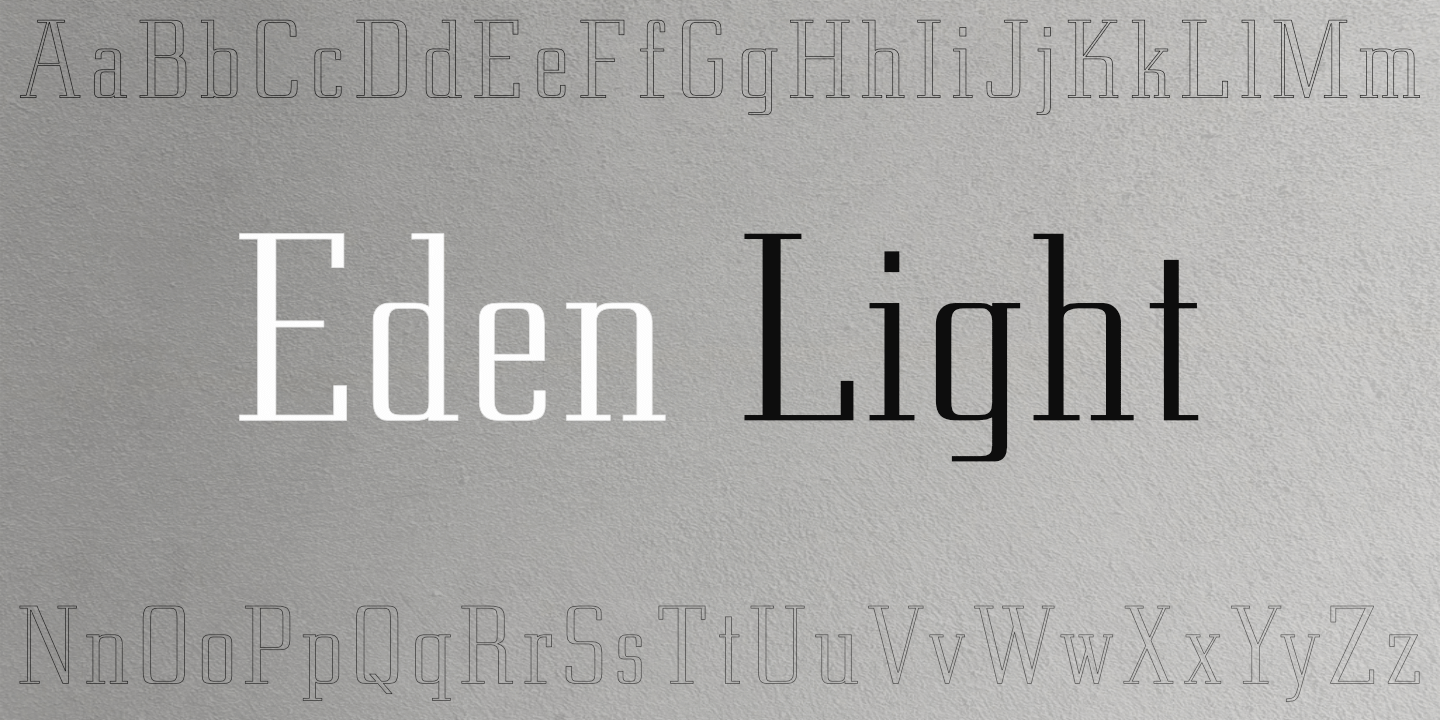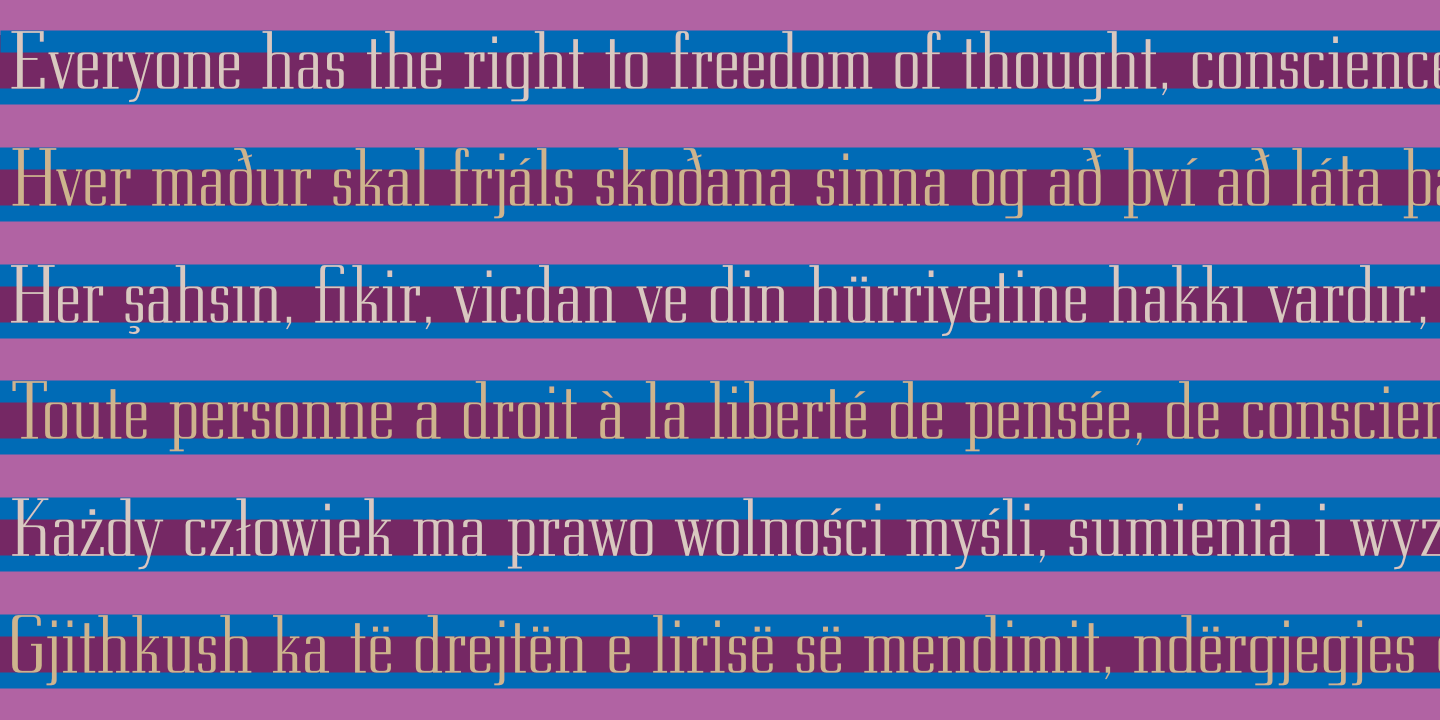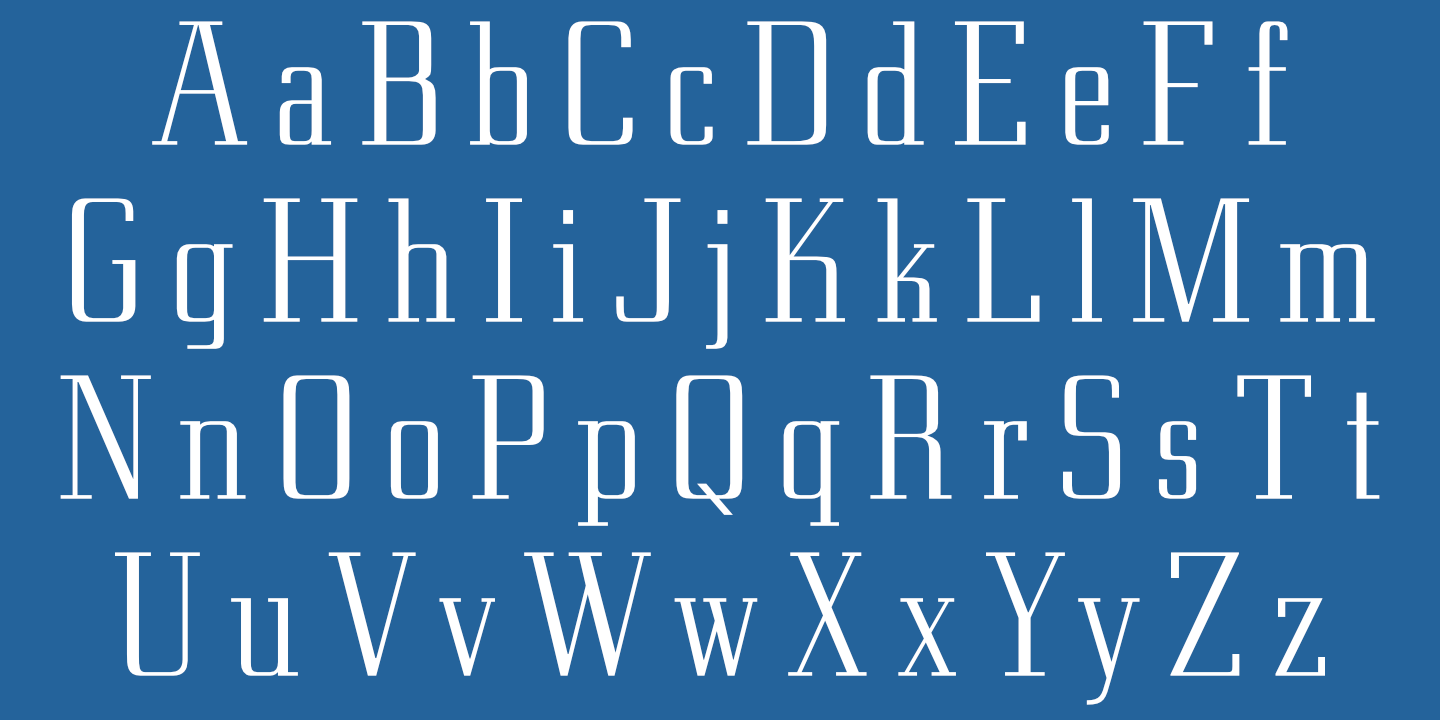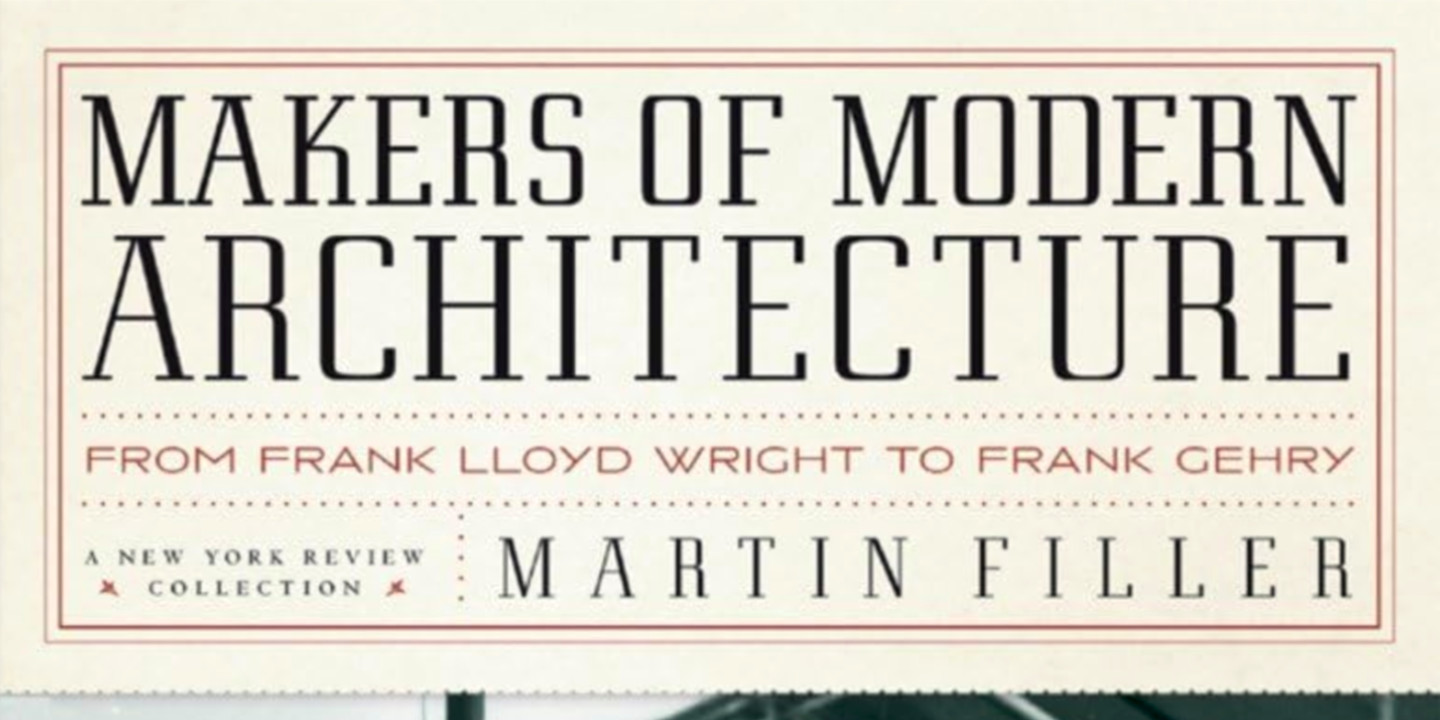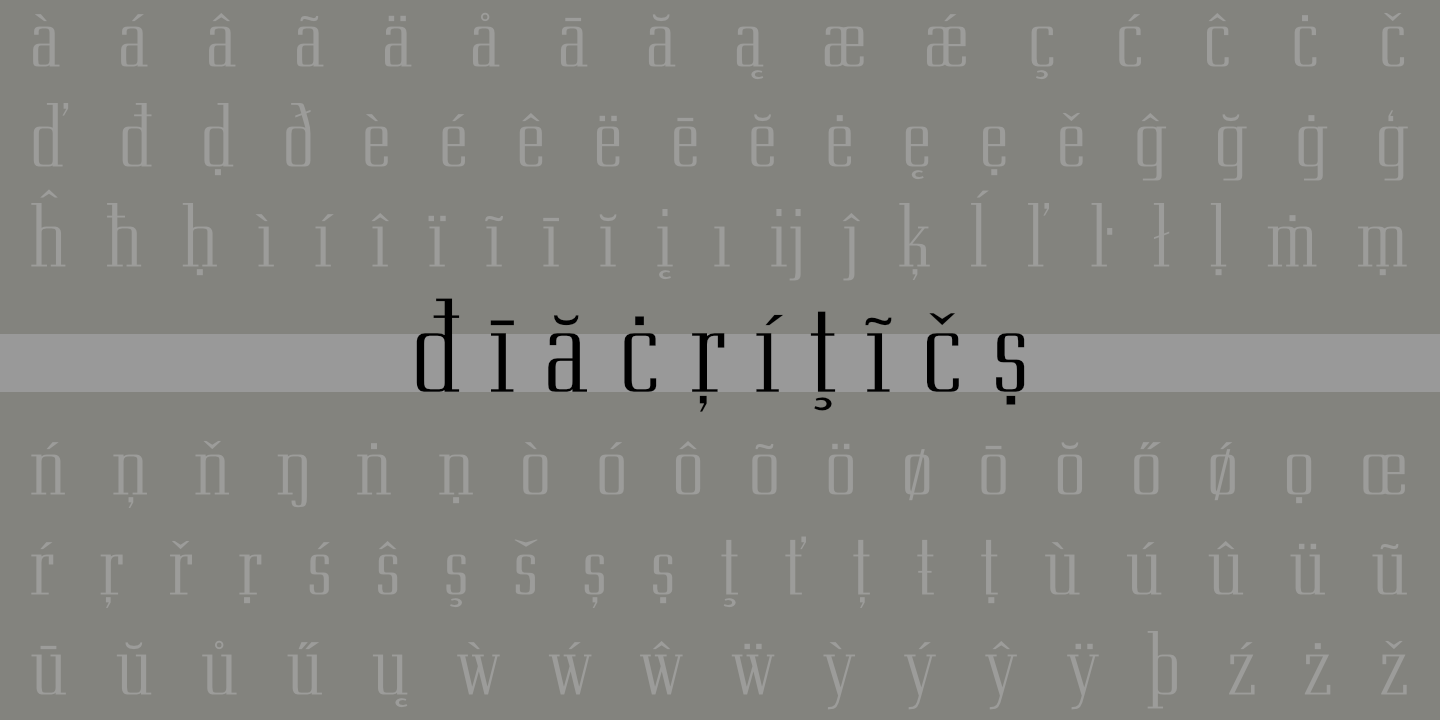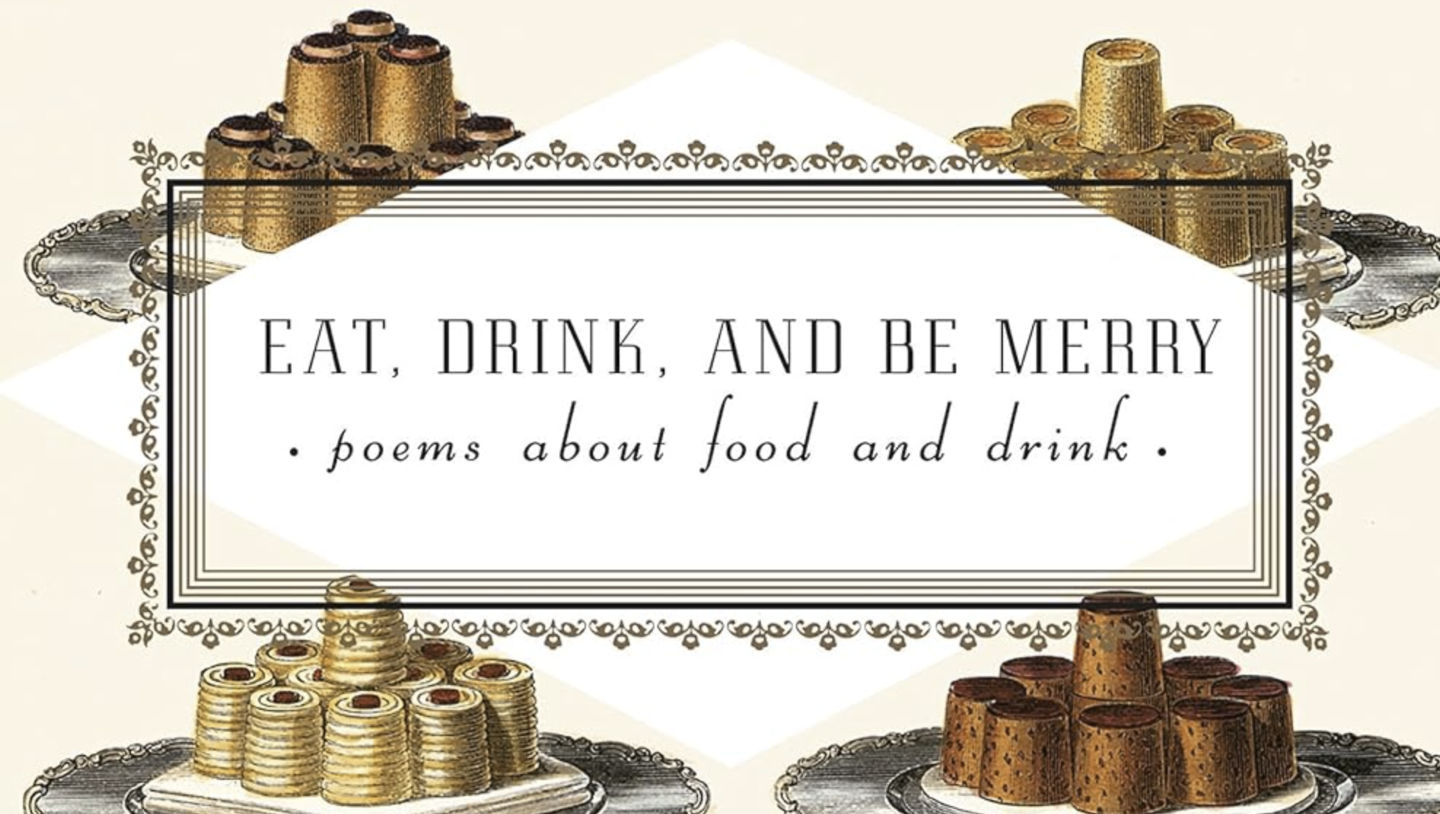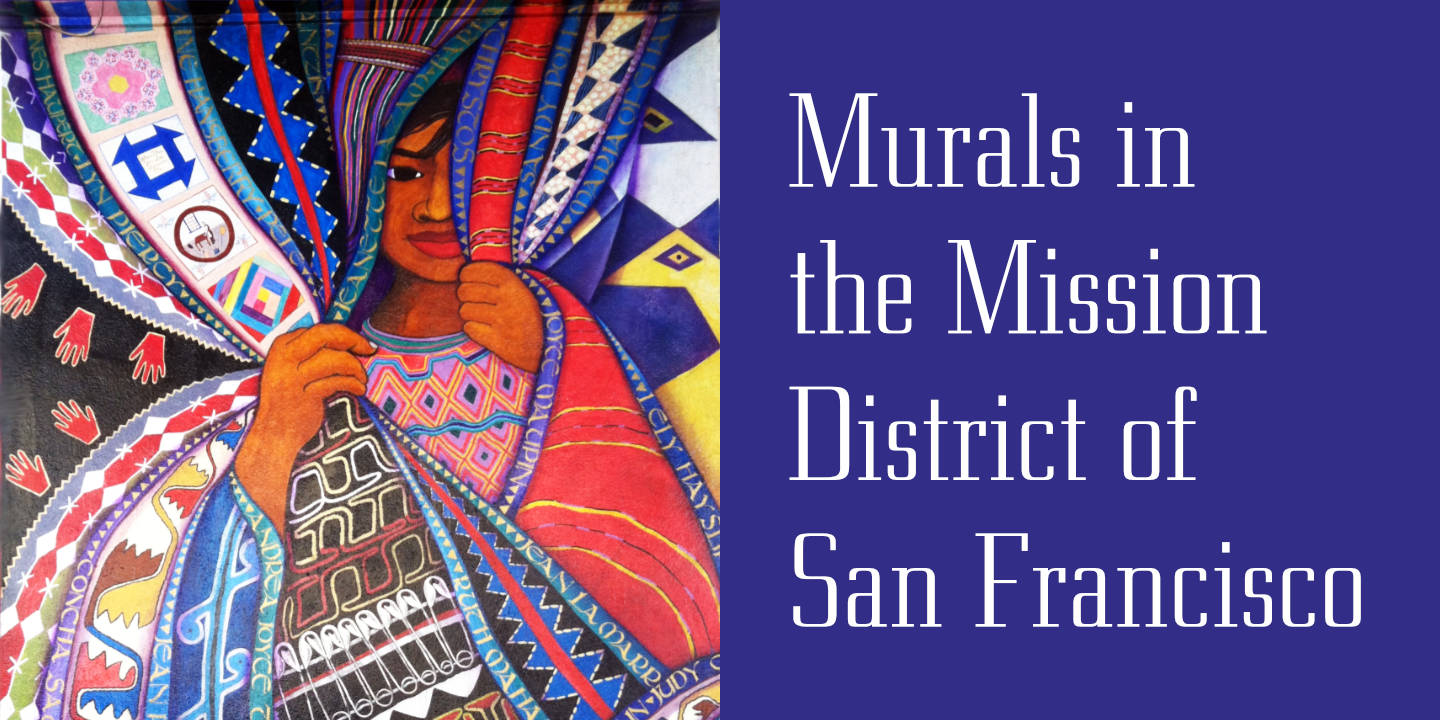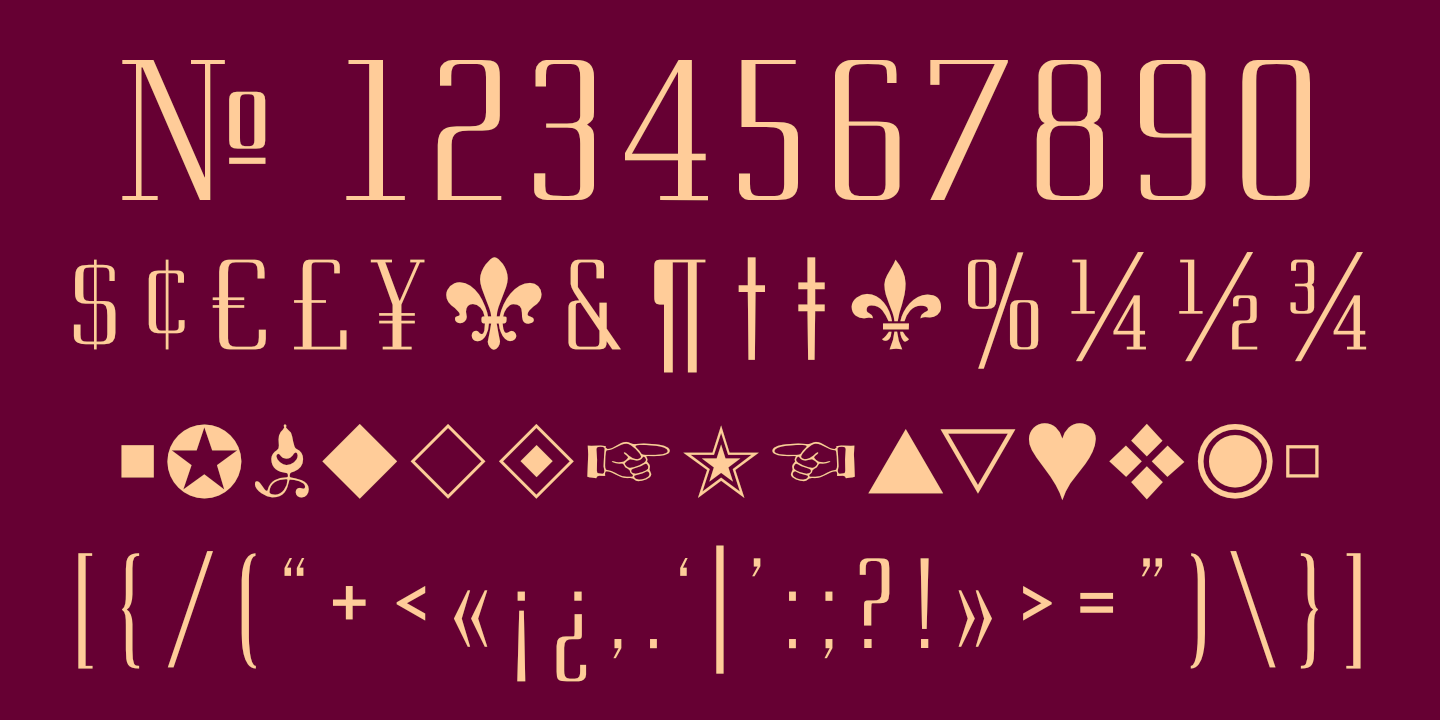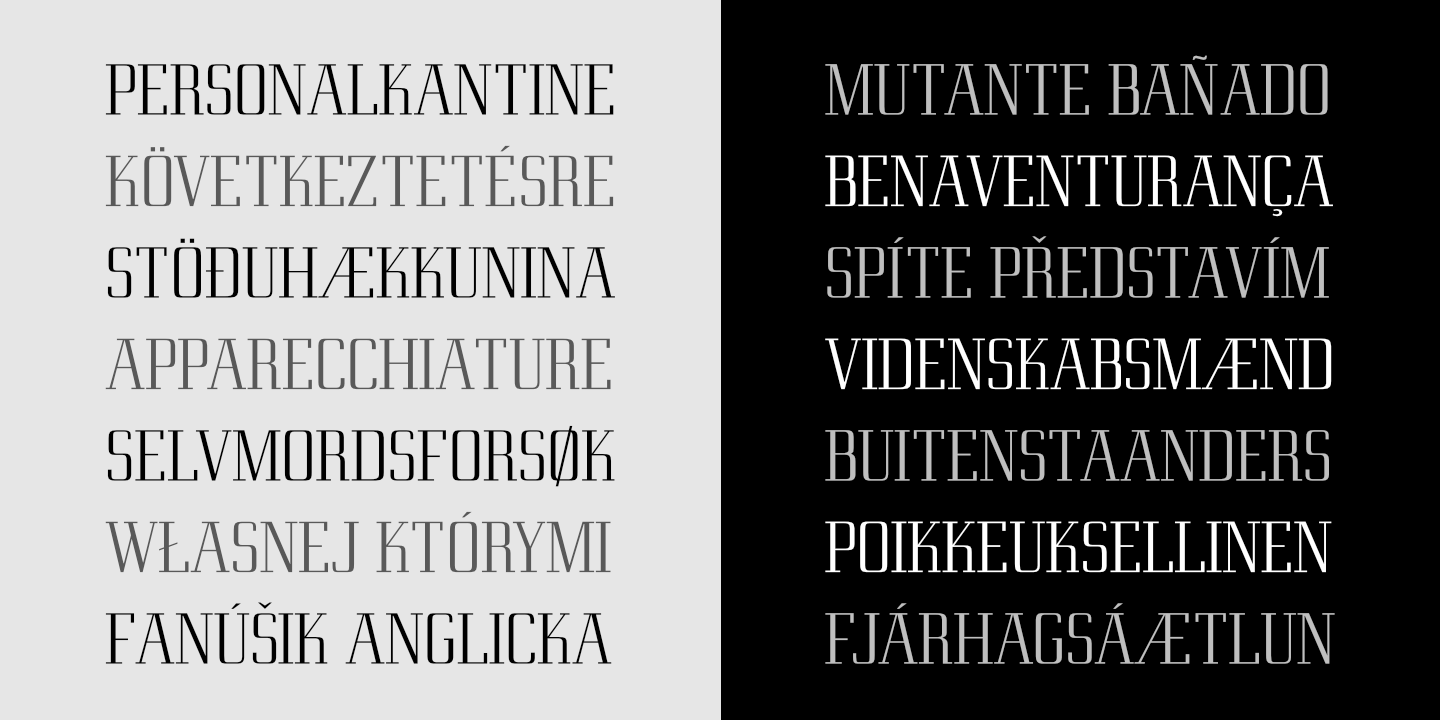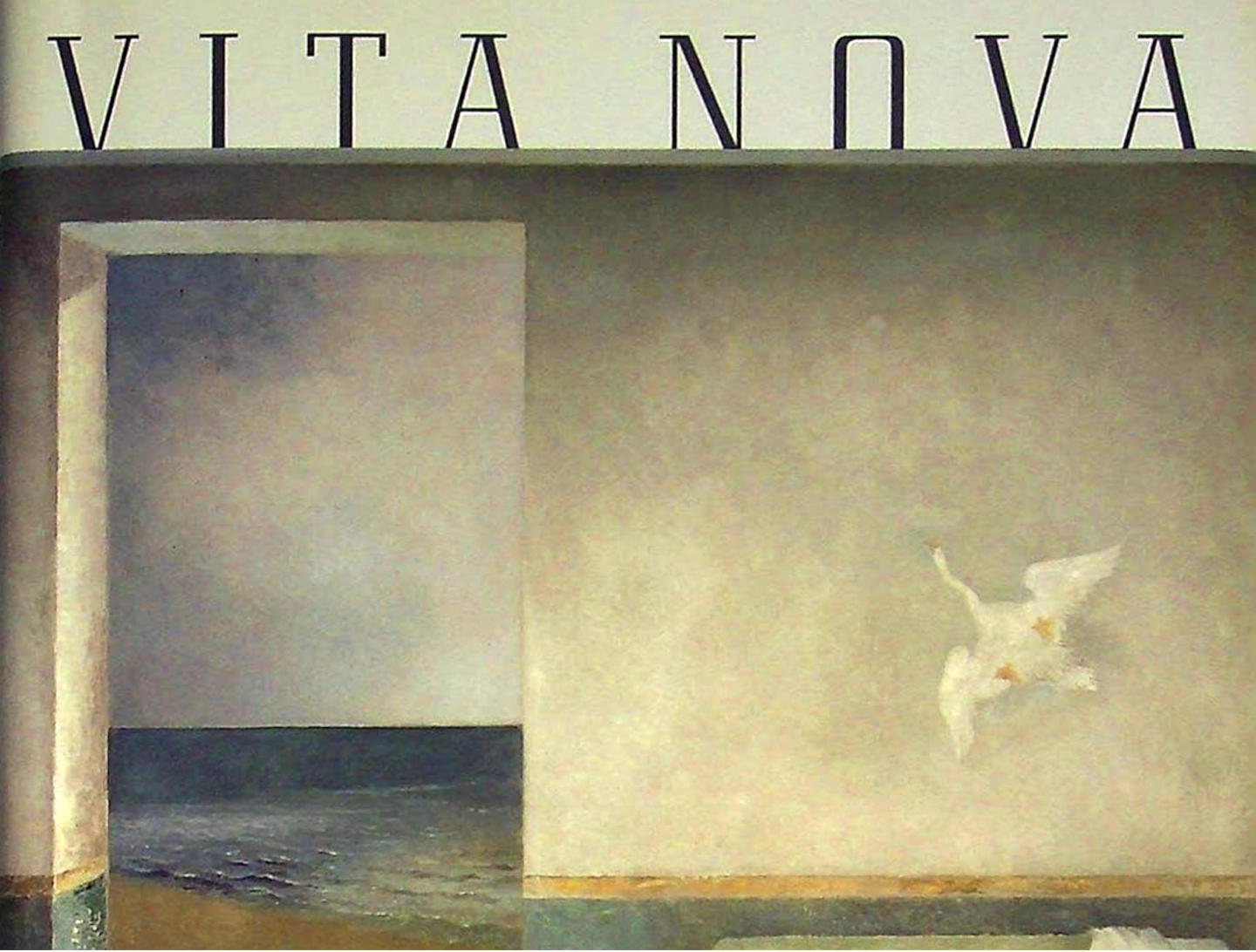
Latin Alphabet
Eden CT Light: Basic Latin alphabet. See Glyphs for details.
Numerals poster
Eden CT Light: Numerals, basic punctuation, currency symbols, and a sampling of ornaments.
UDHR
Eden Light supports many European languages. See Glyphs for details.
Stacked Text
Notice that light text on a dark background appears slightly heavier than dark text on a light background. blank
Diacritics
Vita Nova
Eden Light as used on the cover of a book of poems by Louise Glück.
Poems about food
Eden Light used on the cover of "Eat, Drink, and Be Merry" by Peter Washington.
Mural in Mission
Cherokee Rose
Makers of Modern Architecture
Eden Light used on the cover of "Makers of Modern Architecture" by Martin Filler.
Coffee Roasting
Fontname poster